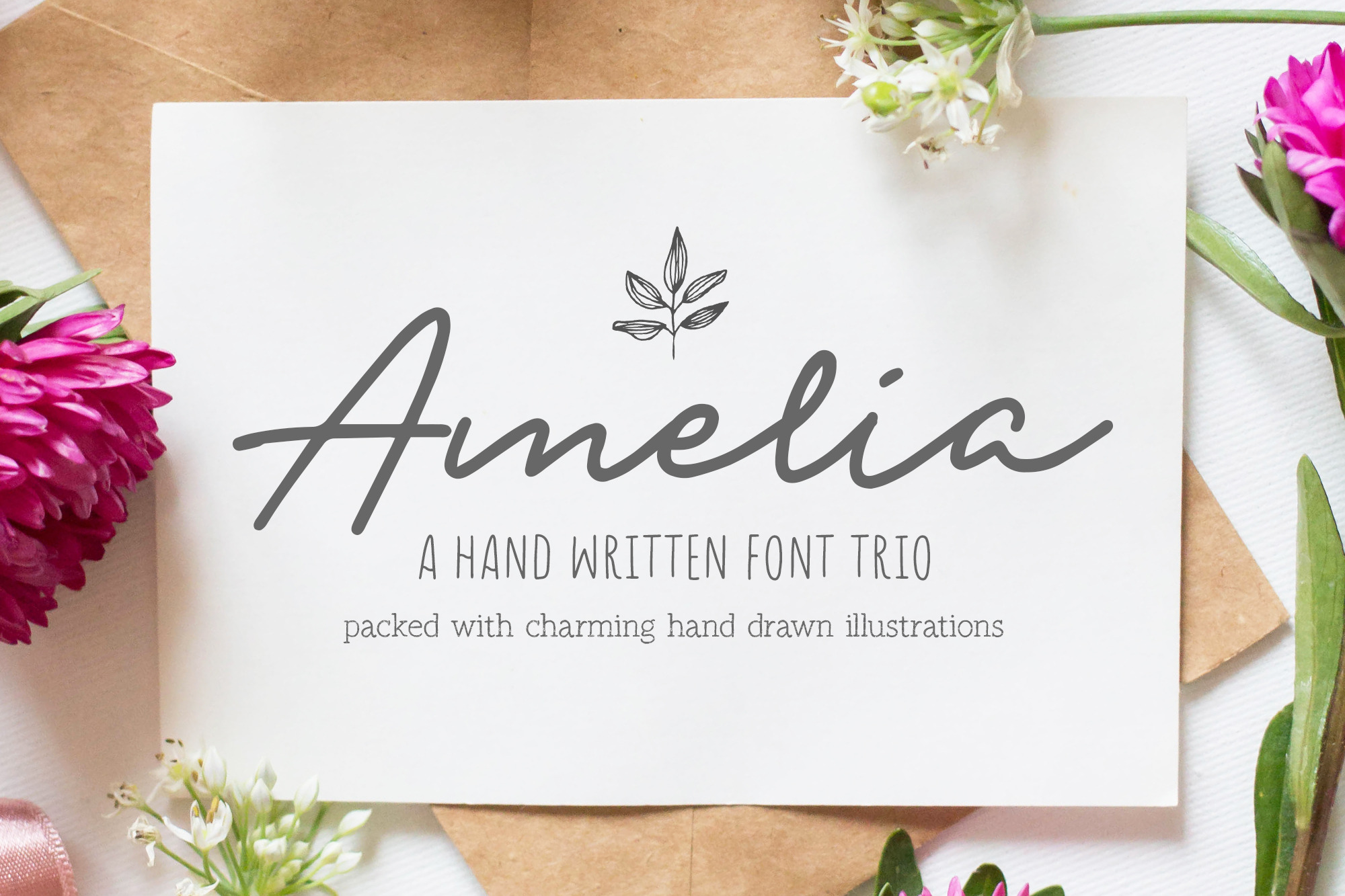
Introducing Amelia! A minimal little hand written font trio and illustrations.
Inspired by minimal hand drawn logos, this little charming bundle includes the Amelia Script, Amelia Sans and Amelia Serif, designed to go hand in hand as a trio, or pick any two fonts for a lovely Duo.
Including over 300 hand drawn illustrations inspired by the kitchen, autumn season and the dreamy universe. Use them to create a million logos, t-shirt designs, greeting cards, branding, etc.
Multi-lingual support is included for all fonts. The following characters included á â à ä å ã æ ç é ê è ë í î ì ï ı ñ ó ô ò ö õ ø œ š ß ú û ù ü ý ÿ ž À Ä Å Ã Æ Ç É Ê È Ë Í Î Ì Ï Ñ Ó Ô Ò Ö Õ Ø Œ Š Û Ù Ü Ý Ÿ